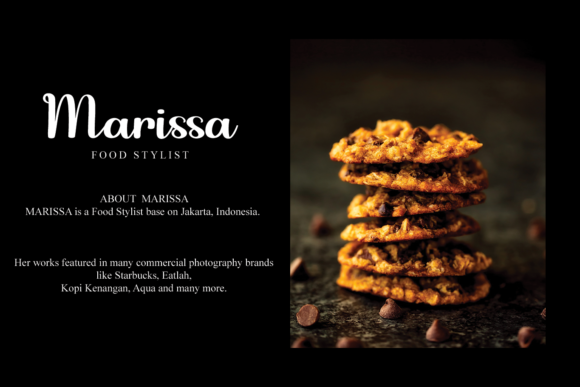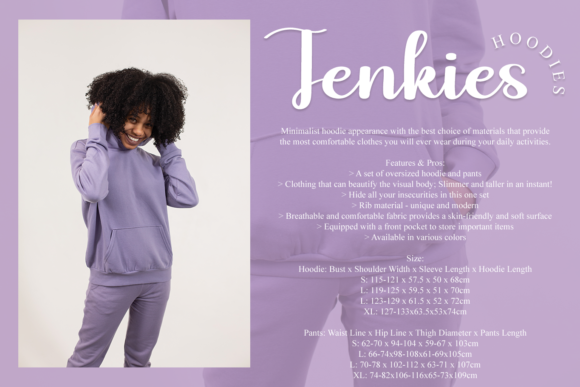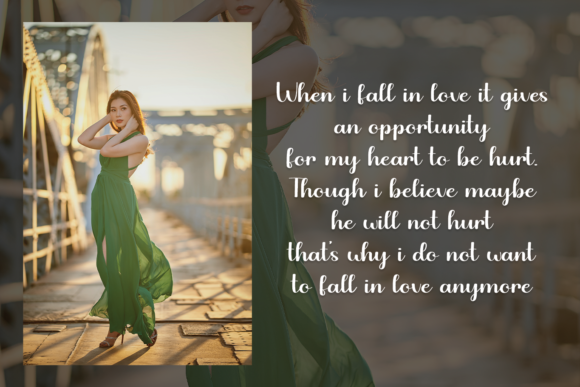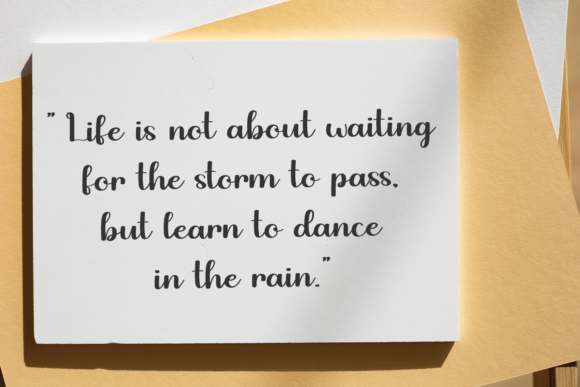
The Sweet Charm of Brown Sugar Font: A Designer’s Delight
I’ll never forget the time I was working on a wedding invitation project, and my client asked for a font that was ” elegant, yet playful, and totally Instagram-worthy.” I scoured the internet, tried out a gazillion fonts, but nothing seemed quite right. That was until I stumbled upon Brown Sugar Font. ✨ It was love at first sight! The flowing, graceful script stole my heart, and I knew I had found the perfect fit for my project.
- 💃 Flowing and elegant script style that’s perfect for wedding invitations, stationery, and social media posts.
- ✅ Highly legible, even at smaller font sizes.
- 🎉 Beautiful OpenType features, including stylistic alternates and glyphs.
- 👍 Extensive language support, making it a great choice for international projects.
- 🤔 Some users may find the font a tad too ornate for very casual or playful projects.
- ⚠️ Limited availability of condensed or bold weights, which might limit its use in certain design scenarios.
The Story Behind Brown Sugar Font: Designer Inspiration
Brown Sugar Font was designed with the intention of creating a beautiful, elegant script font that would evoke the warmth and charm of handwritten calligraphy. The designer aimed to craft a font that would be perfect for special occasions, such as weddings and anniversaries, while also being versatile enough for everyday use. With its flowing lines and beautiful OpenType features, Brown Sugar Font is sure to delight designers and crafters alike.
| Font Name | Brown Sugar Font |
| Author | erik studio |
Q: What type of projects is Brown Sugar Font best suited for?
A: Brown Sugar Font is perfect for projects that require an elegant, yet playful touch, such as wedding invitations, stationery, social media posts, and more.
Q: Is Brown Sugar Font available in multiple languages?
A: Yes, Brown Sugar Font supports multiple languages, making it a great choice for international projects.
Q: Can I use Brown Sugar Font in my digital designs, such as website headers or social media graphics?
A: Absolutely! Brown Sugar Font is a versatile font that can be used in both print and digital designs.